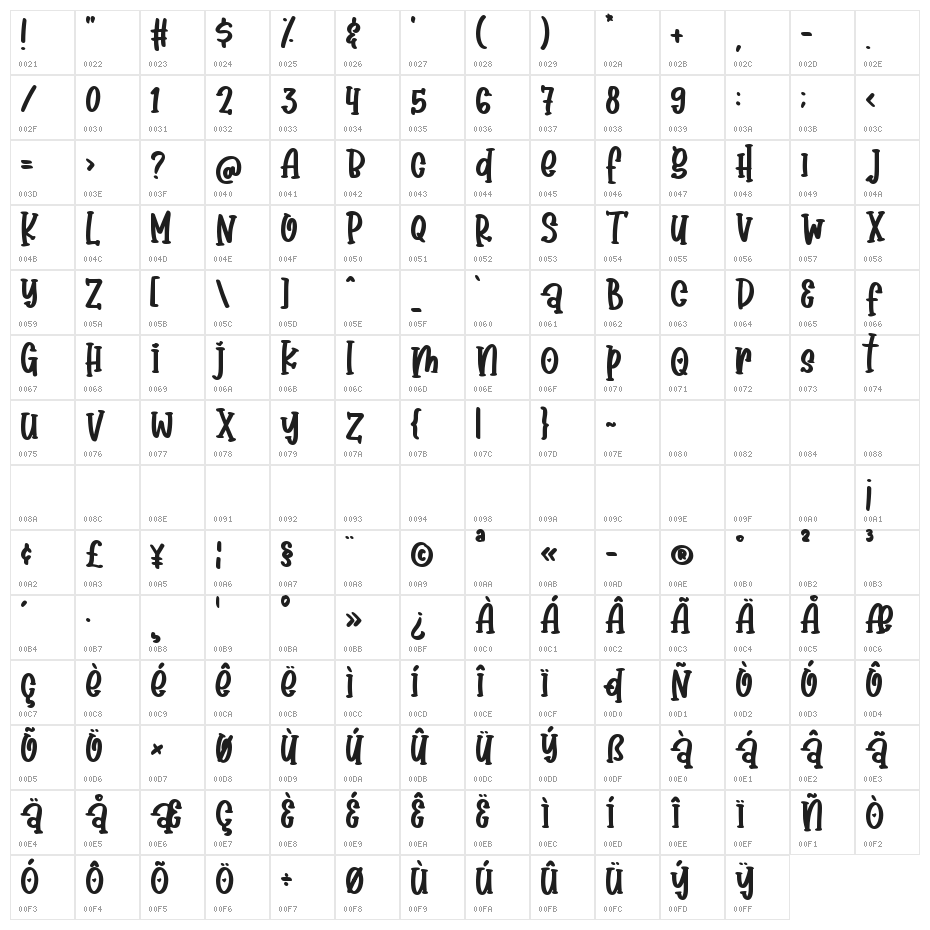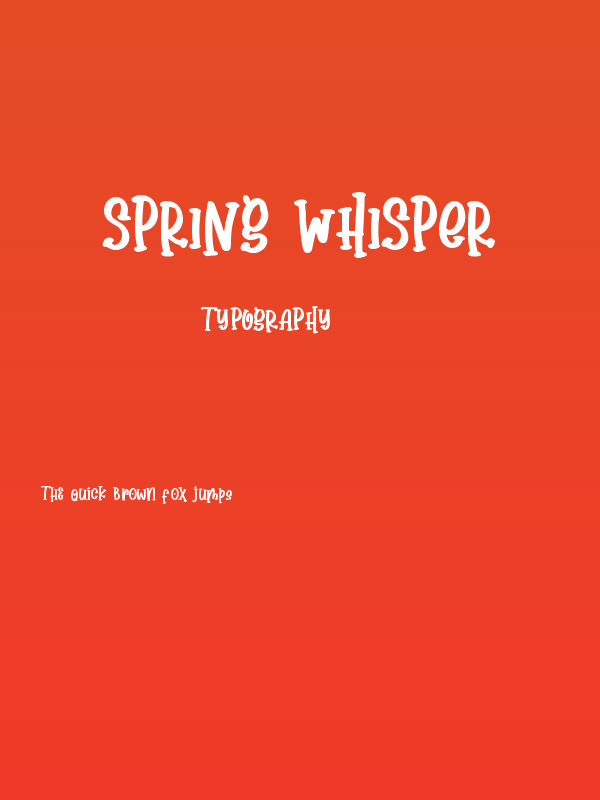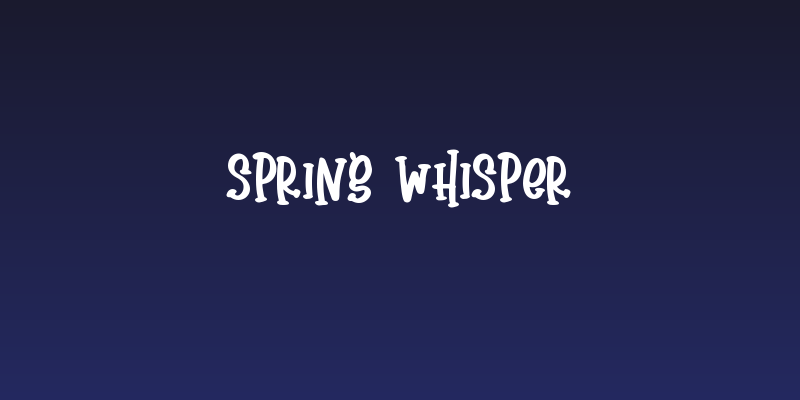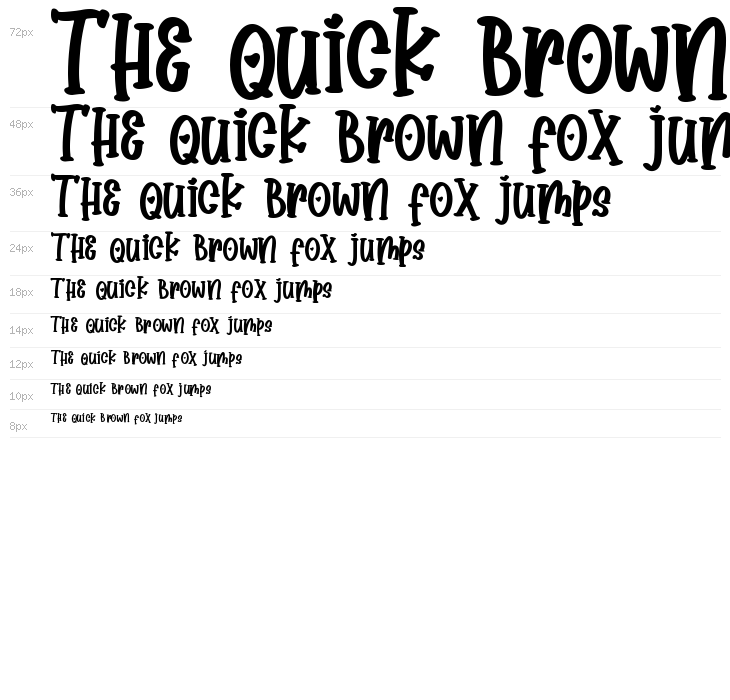
Spring Whisper Font
Spring Whisper Description
This font exudes a playful and whimsical charm, characterized by its bold and rounded letterforms. The strokes are thick and consistent, giving it a strong presence while maintaining a friendly and approachable feel. The uppercase and lowercase letters are well-balanced, with a slight tilt that adds to its casual and informal style. Numbers and special characters are crafted with the same playful spirit, ensuring a cohesive look across all elements. This font is perfect for projects that require a touch of fun and creativity, such as children's books, playful branding, or eye-catching headlines.
Overall StylePlayful, Whimsical
Use CaseHeadlines, Logos, Posters
Proposed ProjectsIdeal for children's books, playful branding, and eye-catching headlines.